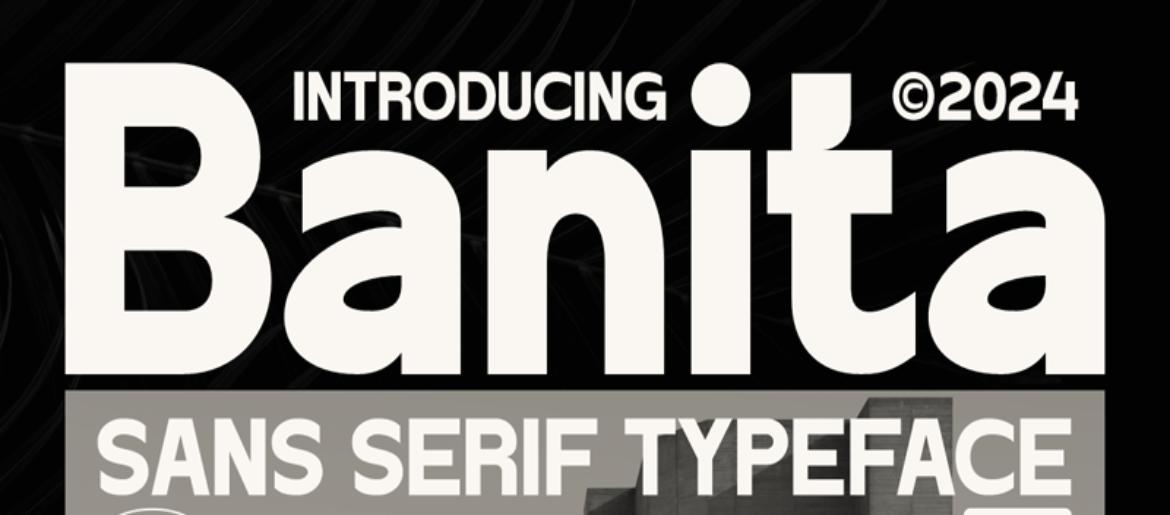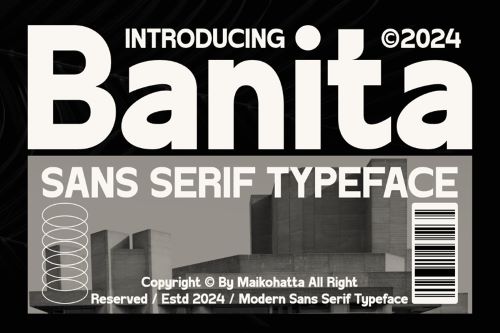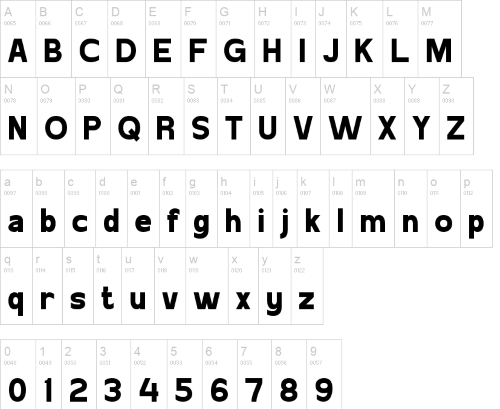
Banita Font
Banita Font is a bold, modern sans-serif typeface that radiates confidence and sophistication. Its clean lines and strong letterforms communicate power and stability while remaining warm and approachable. Perfect for headlines, branding, and high-impact displays, Banita captures attention with authority—without ever feeling harsh or aggressive.
➤ Font Name: Banita
➤ Designer: Gilang Ternadho
➤ Style: Sans serif